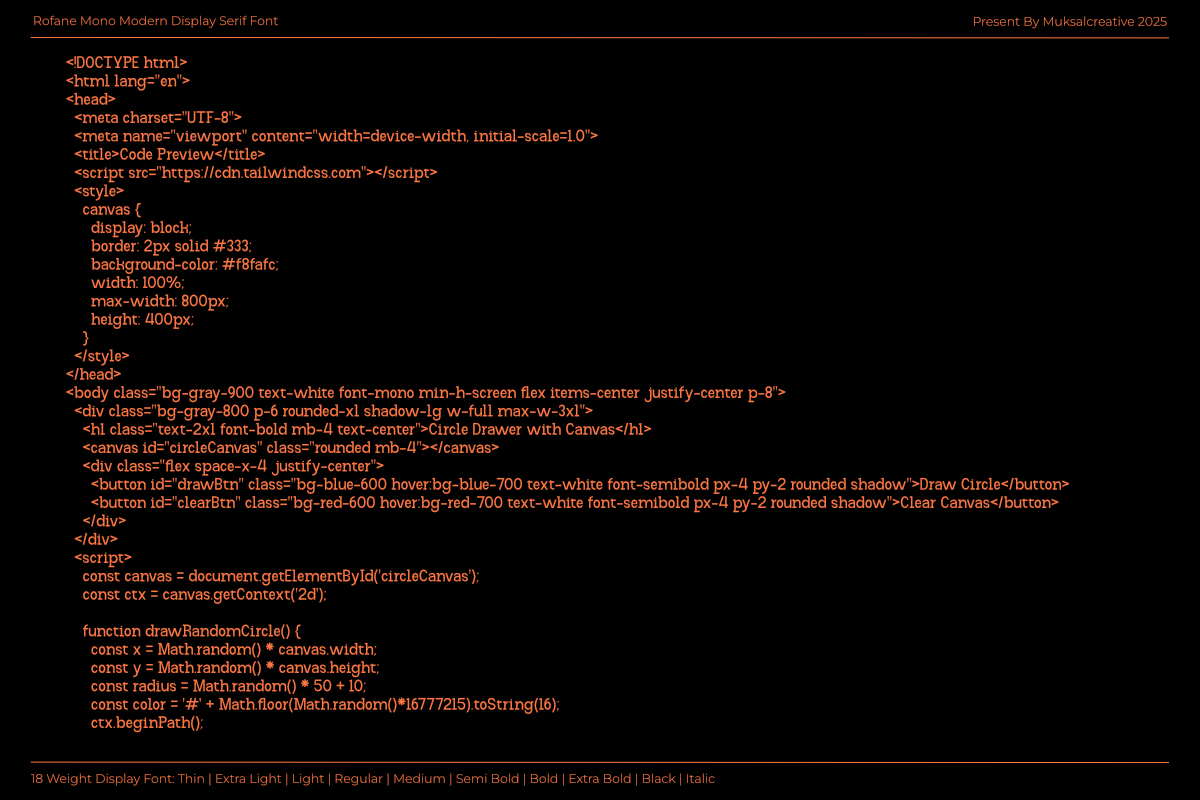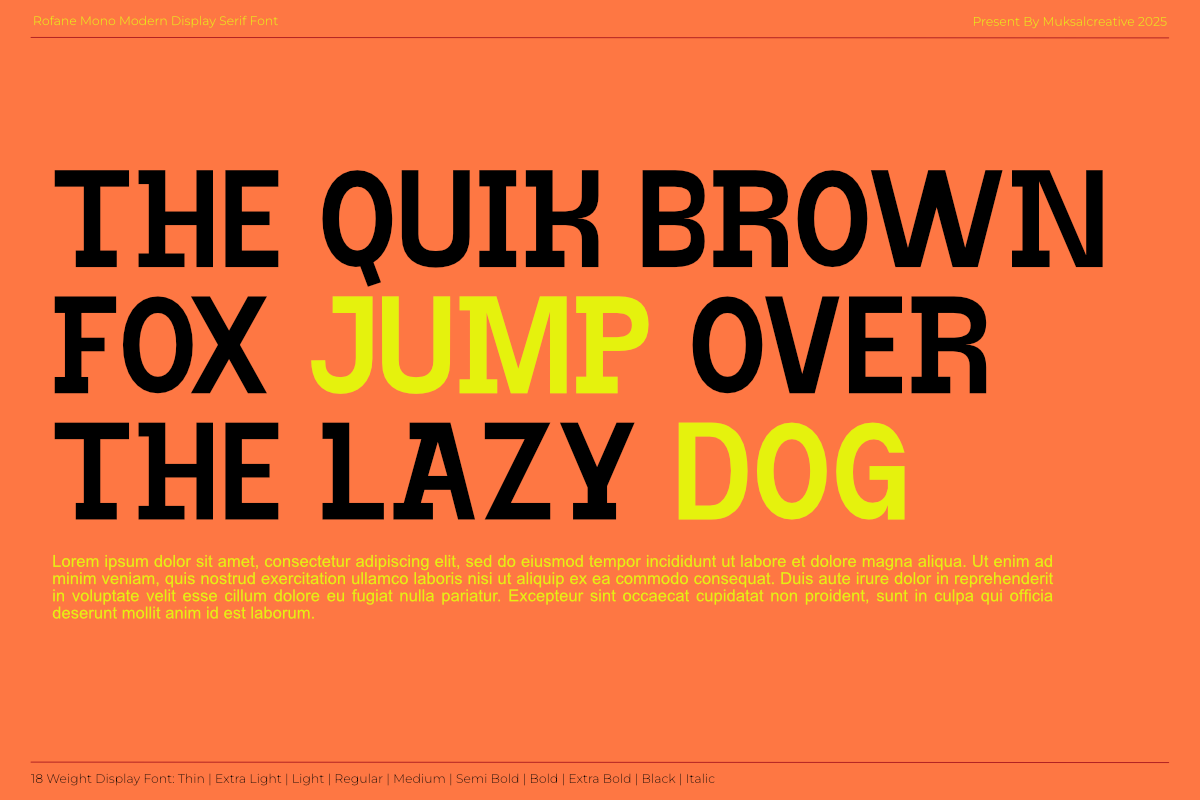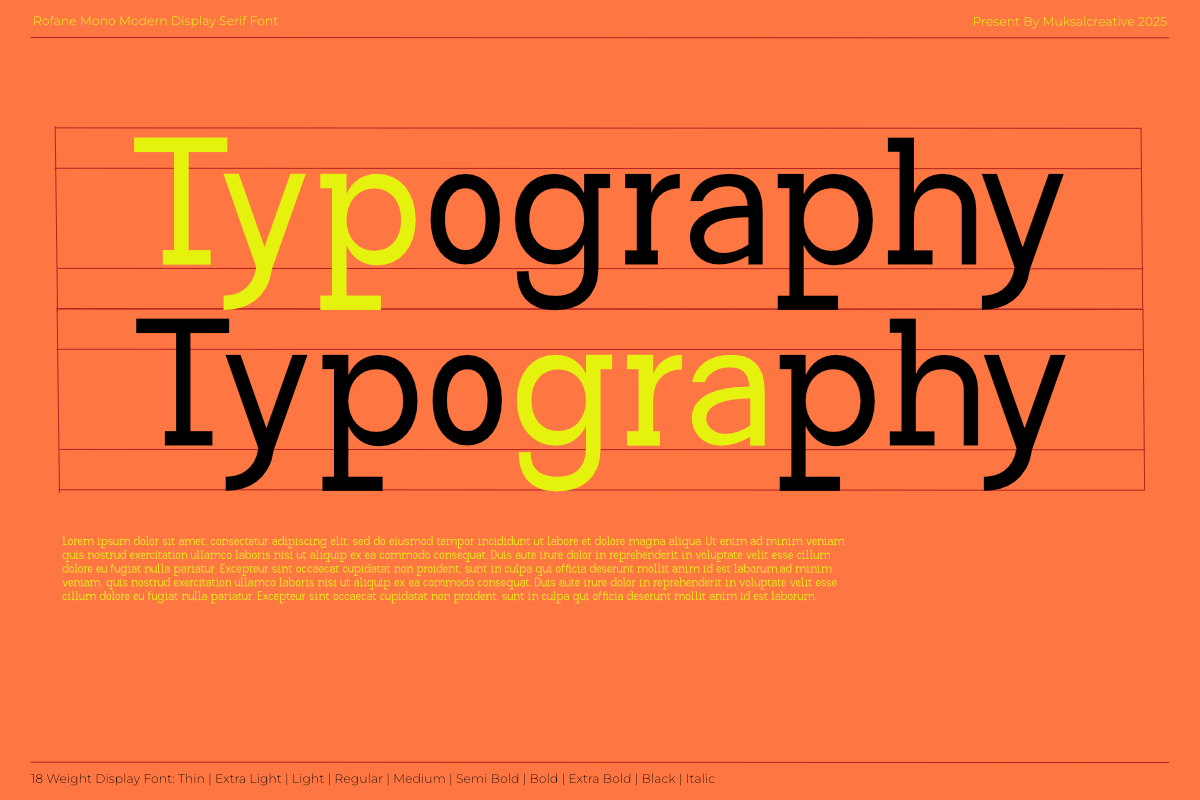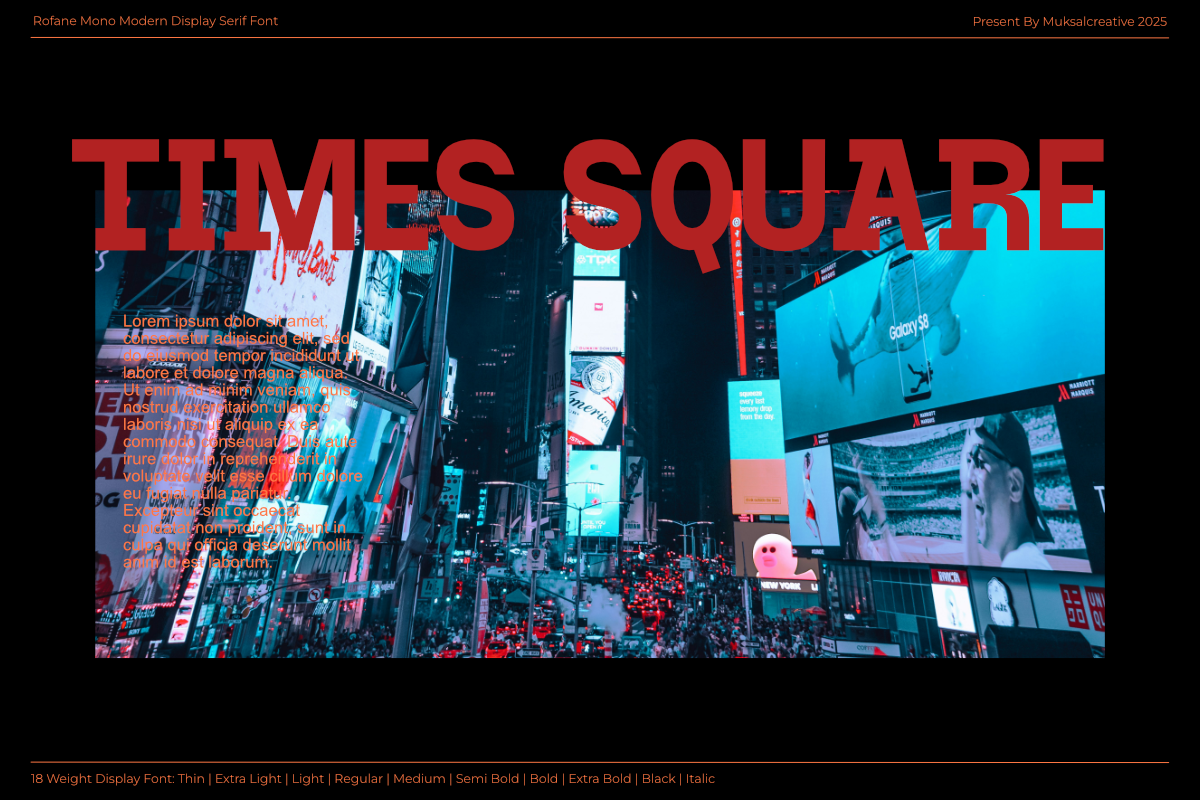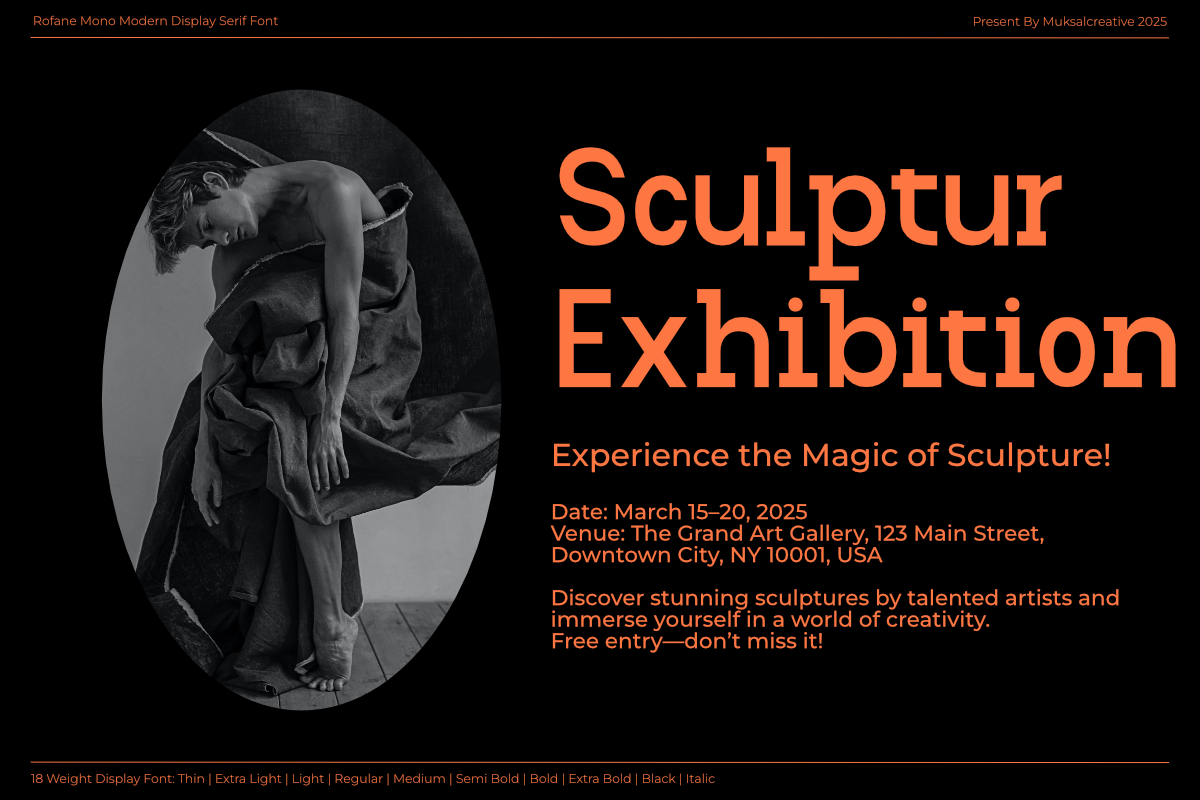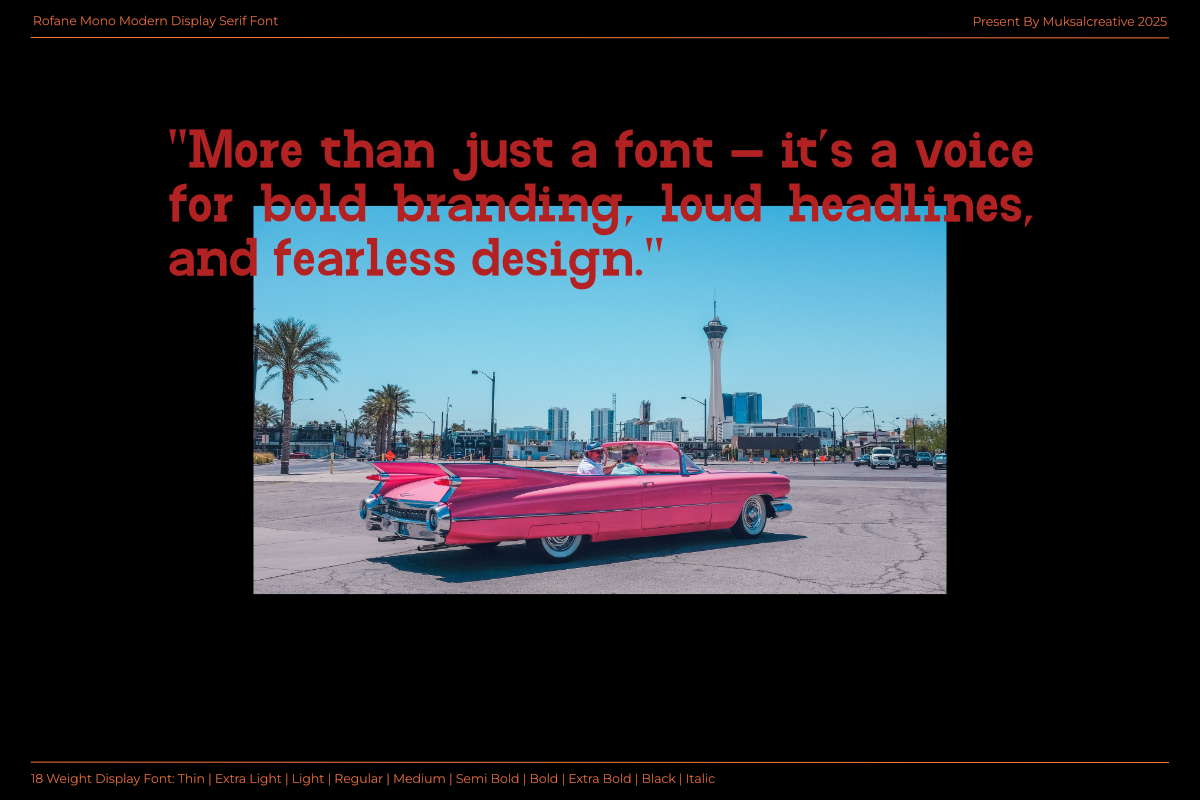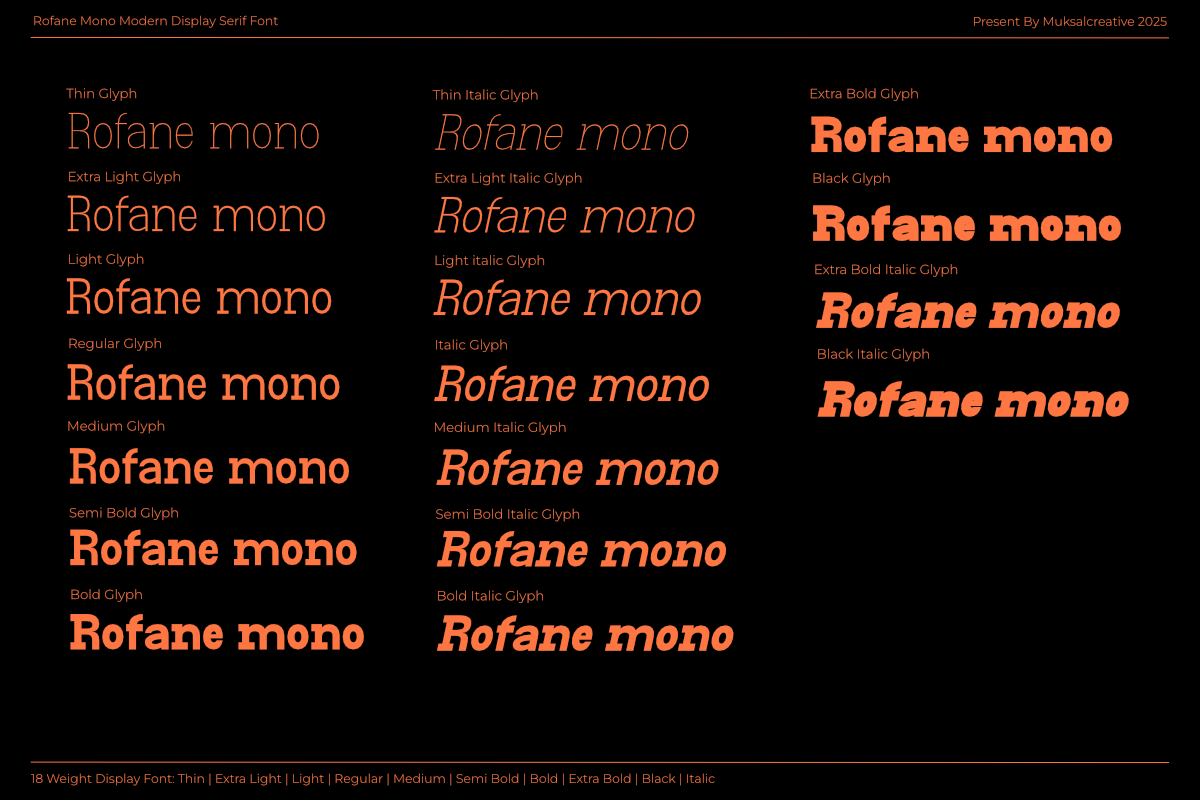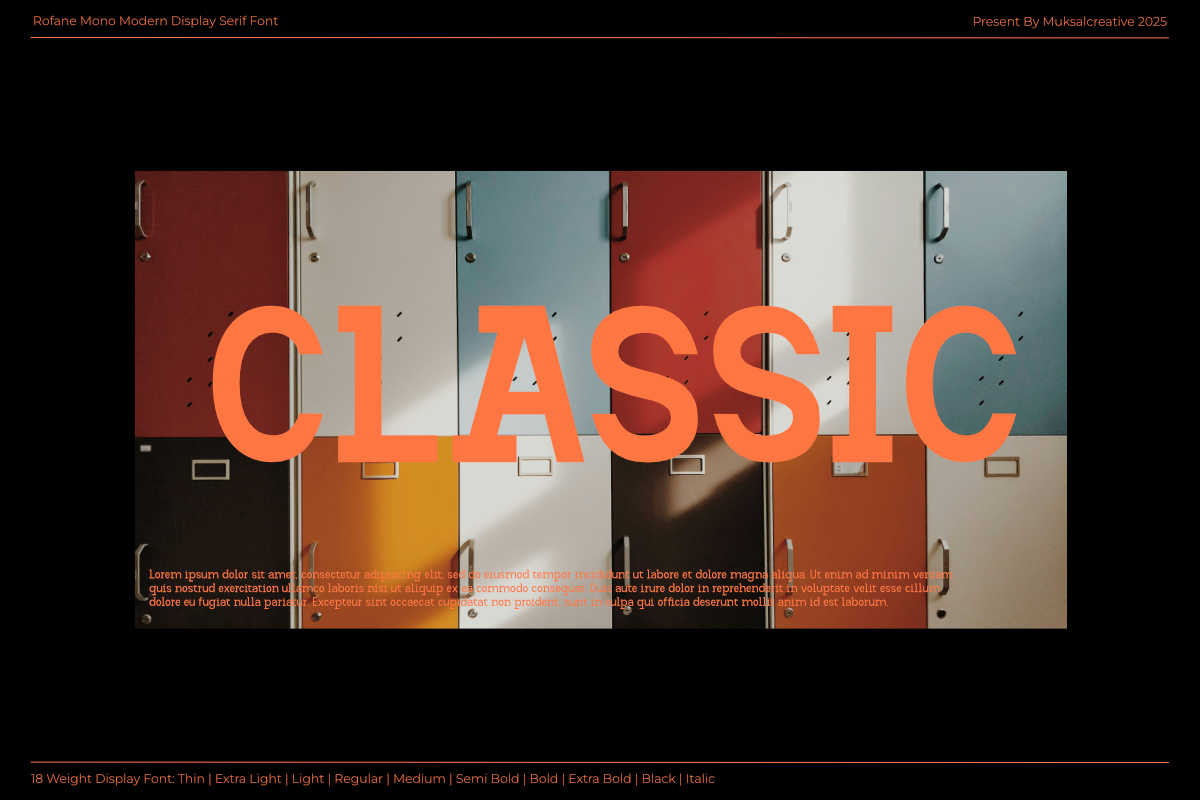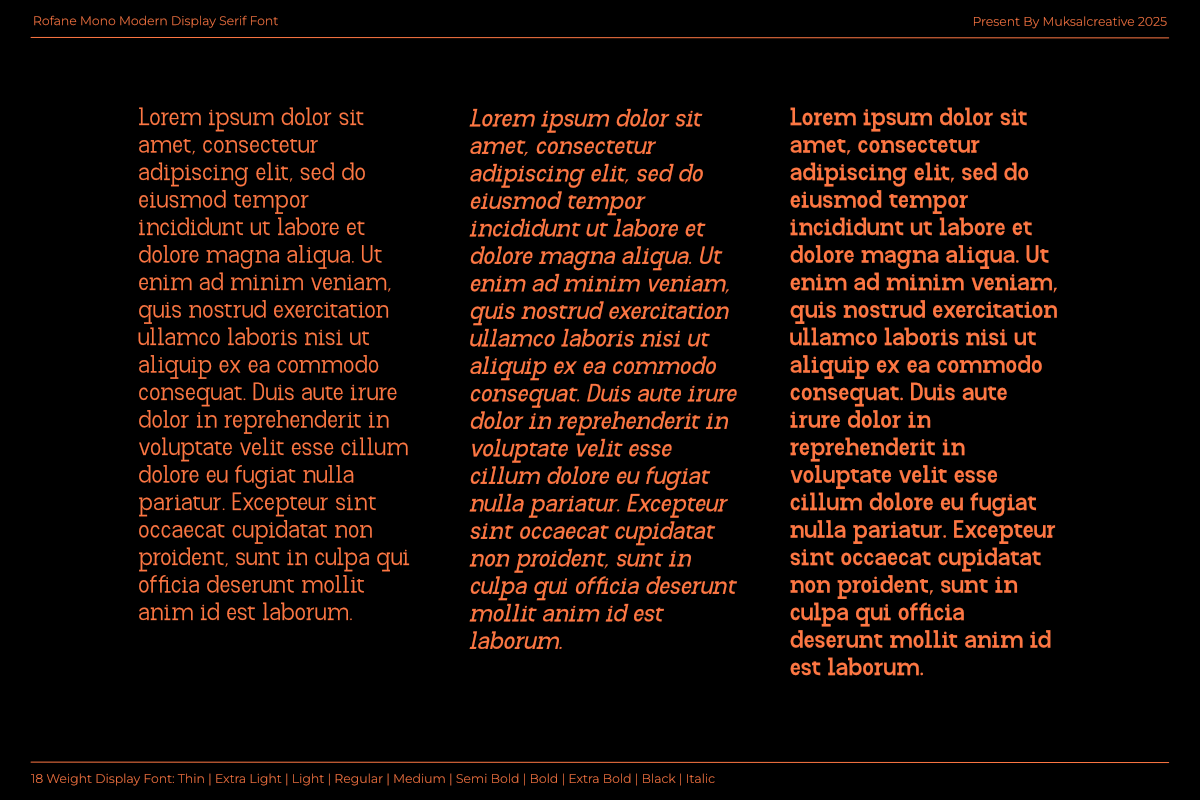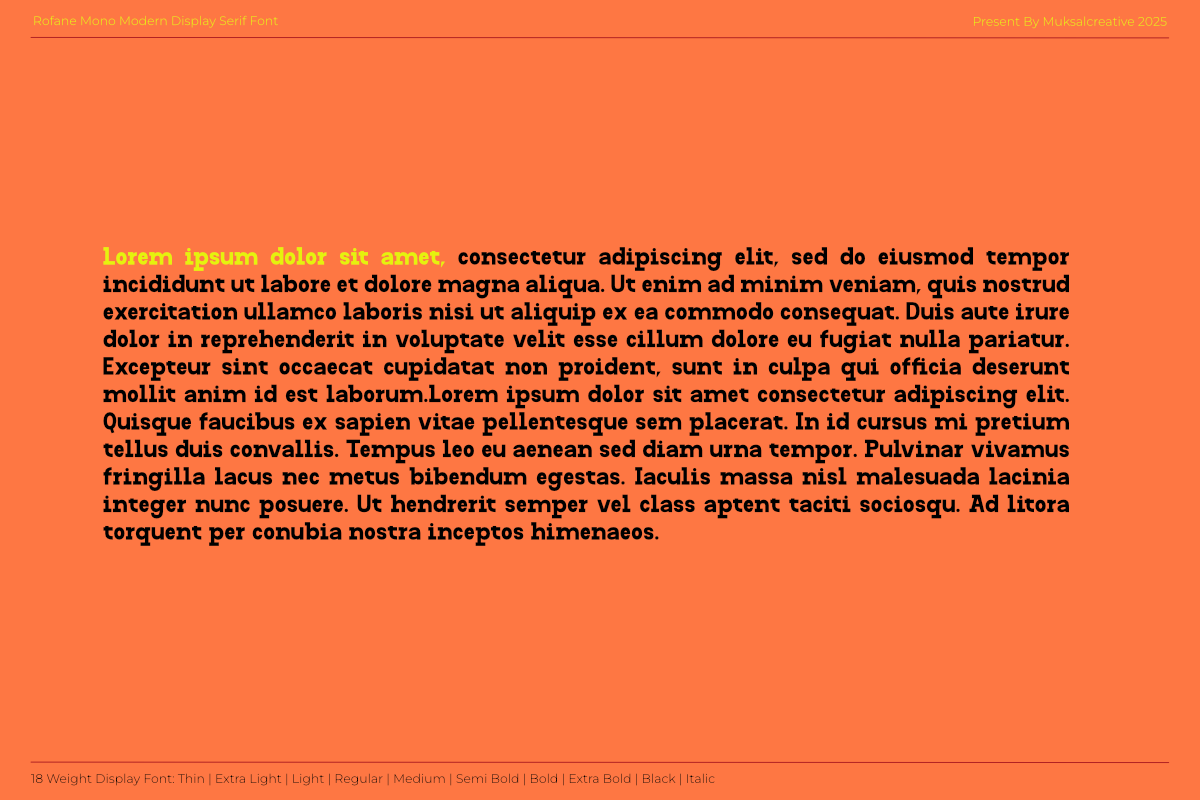
Rofane Mono
Rofane Mono is a hybrid monospaced font family that merges the clarity of sans-serif with the personality of serif. Designed with both functionality and character in mind, Rofane Mono offers a unique voice for modern designers who seek balance between structure and expression.
This family includes 18 weights, ranging from Thin to Black, and each weight comes with its own matching Italic—making it a versatile choice for editorial, coding interfaces, branding, and typographic experiments. Whether you're building a modern app or crafting a bold magazine layout, Rofane Mono brings rhythm, consistency, and a fresh aesthetic to your typography toolkit.